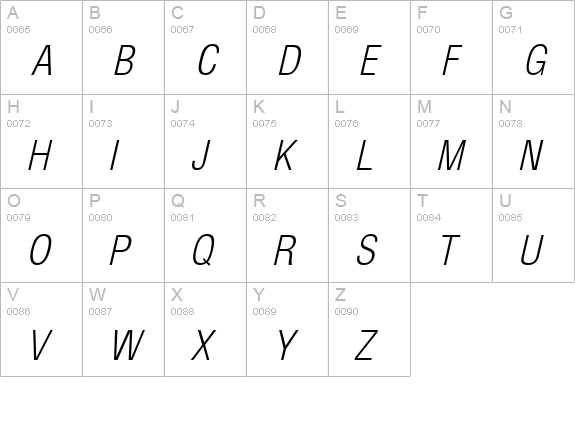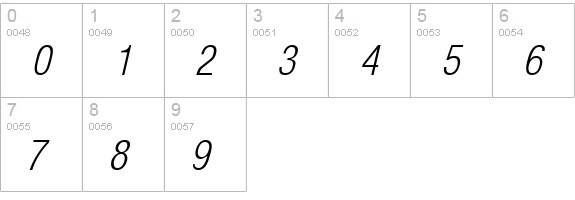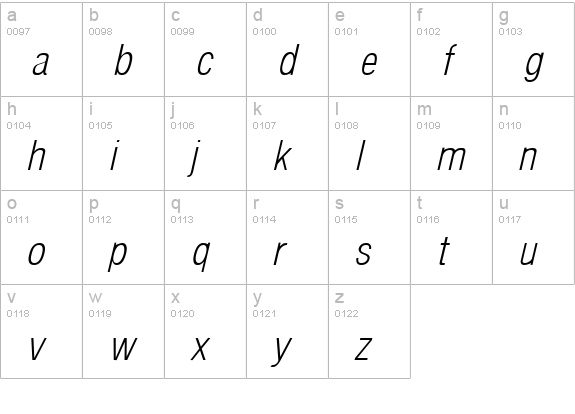
Arena Cond Light Italic Font Details
Arena Cond Light Italic is a refined, elegant, condensed-width, italic variant in the Arena typeface family \xE2\x80\x94 well suited to elegant body text, refined sub-headings, and luxury branding.
Arena Cond Light Italic is a sleek and elegant typeface that exudes sophistication and modernity. Its clean lines and slight slant give it a dynamic and stylish look, perfect for adding a touch of class to any design project. The light weight of the font creates a sense of airiness and delicacy, making it ideal for use in titles, headlines, and branding materials. What makes Arena Cond Light Italic even more appealing is that it is available for free download at FontsMarket.com. This means you can easily access this high-quality font without any cost, making it a valuable addition to your font collection. Whether you're working on a website, poster, logo, or any other design project, Arena Cond Light Italic offers a versatile and sophisticated option that will elevate your work to the next level.